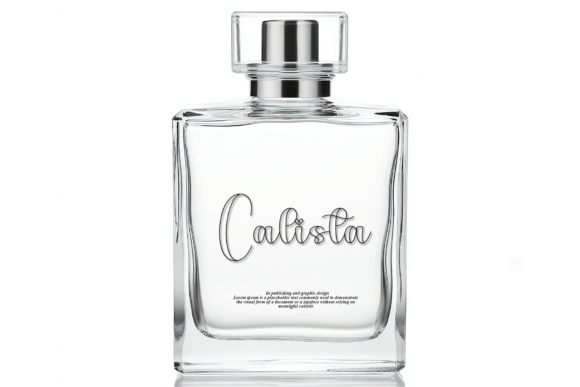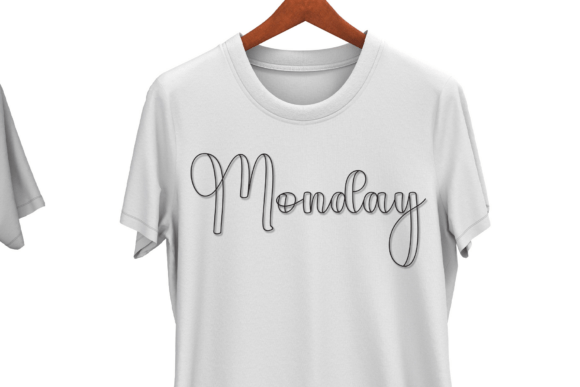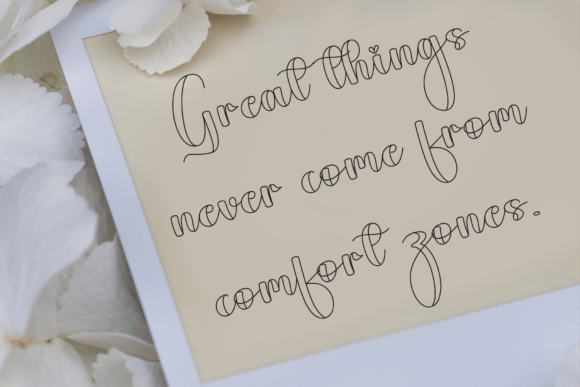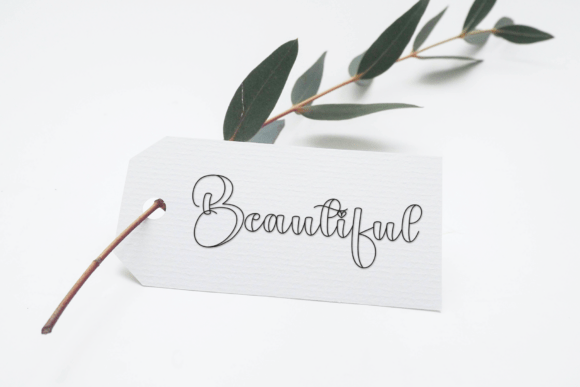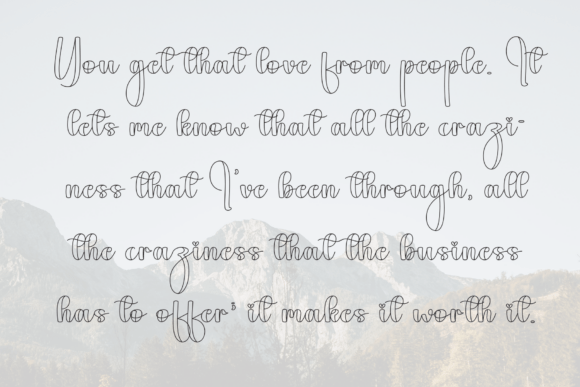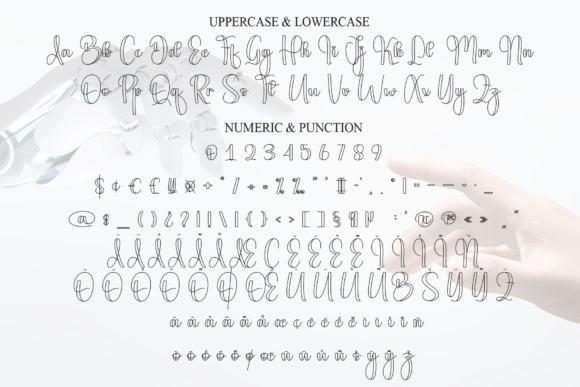
Introducing Digital: The Elegant Handwritten Script Font
In the world of typography, few fonts manage to capture the essence of elegance and charm as effortlessly as Digital. This stylish handwritten script font is designed to bring a fresh and delicate touch to any design project, making it perfect for invitations, branding, and seasonal designs. With its flowing strokes and graceful curves, Digital evokes a sense of renewal and sophistication, adding a soft, personal touch and uplifting feel to any project.
The Characteristics of Digital Font
Digital is a carefully crafted font that boasts a range of characteristics that set it apart from other typefaces. Its handwritten script style gives it a personal and intimate feel, making it ideal for designs that require a touch of warmth and elegance. The font’s flowing strokes and delicate curves create a sense of movement and fluidity, adding a dynamic and expressive quality to any text.
Perfect for Invitations and Branding
Digital’s elegant and refined aesthetic makes it an excellent choice for invitations, such as wedding invites, baby showers, and other special occasions. Its sophisticated charm and delicate feel also make it perfect for branding and packaging designs, where a touch of elegance and refinement is required. Whether you’re designing a logo, label, or packaging, Digital is sure to add a level of sophistication and style to your project.
Seasonal Designs and Beyond
Digital’s fresh and uplifting feel also makes it an excellent choice for seasonal designs, such as Christmas cards, Easter invitations, and summer-themed branding. Its versatility and elegance also make it suitable for a wide range of design projects, from fashion and beauty branding to lifestyle and food packaging. Whether you’re designing for print or digital, Digital is a versatile font that can be used in a variety of contexts.
Why Choose Digital Font?
So why choose Digital font for your next design project? Here are just a few reasons why this elegant handwritten script font stands out:
- Elegant and refined aesthetic: Digital’s sophisticated charm and delicate feel make it perfect for designs that require a touch of elegance and refinement.
- Versatile and flexible: Digital can be used in a wide range of design projects, from invitations and branding to seasonal designs and packaging.
- Personal and intimate feel: Digital’s handwritten script style gives it a personal and intimate feel, making it ideal for designs that require a touch of warmth and elegance.
- Easy to read and use: Digital is a clear and legible font that is easy to read and use, making it perfect for designs that require a high level of readability.
Tips for Using Digital Font
To get the most out of Digital font, here are a few tips to keep in mind:
- Use it sparingly: Digital is a elegant and refined font that can quickly become overwhelming if overused. Use it sparingly to add a touch of sophistication and style to your design.
- Pair it with contrasting fonts: Digital pairs well with contrasting fonts, such as bold sans-serifs or serif fonts. Experiment with different pairings to find the perfect combination for your design.
- Experiment with colors and textures: Digital’s delicate feel and elegant aesthetic make it perfect for use with a range of colors and textures. Experiment with different combinations to find the perfect look for your design.
Digital is a stylish handwritten script font that radiates fresh elegance and delicate charm. Its flowing strokes and graceful curves evoke a sense of renewal, perfect for invitations, branding, and seasonal designs. With its elegant and refined aesthetic, versatile and flexible design, and personal and intimate feel, Digital is the perfect choice for designers and crafters looking to add a touch of sophistication and style to their projects. Whether you’re designing for print or digital, Digital is a font that is sure to impress.